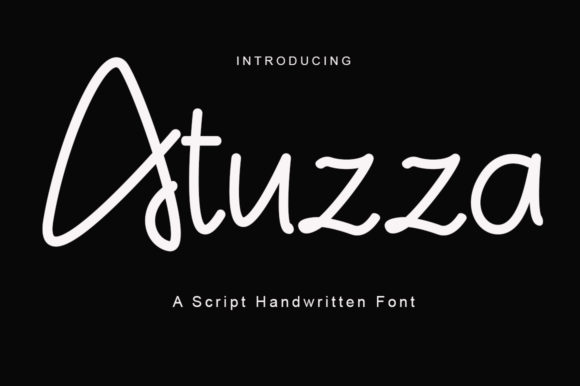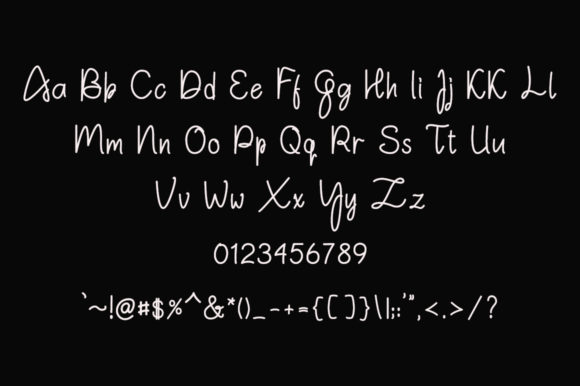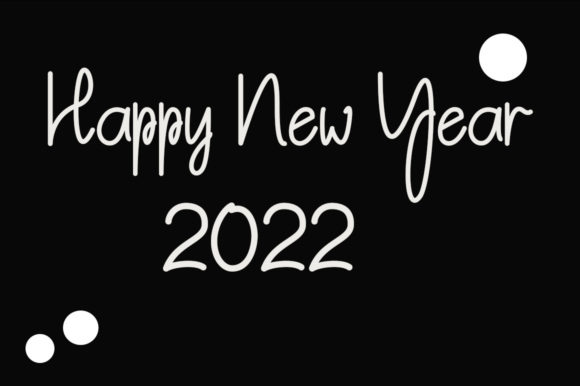
Atuzza Font
About Atuzza Font
Atuzza is a bold script font that you can use for writing on books or product labels, business cards, invitation cards, and promotional advertisements.